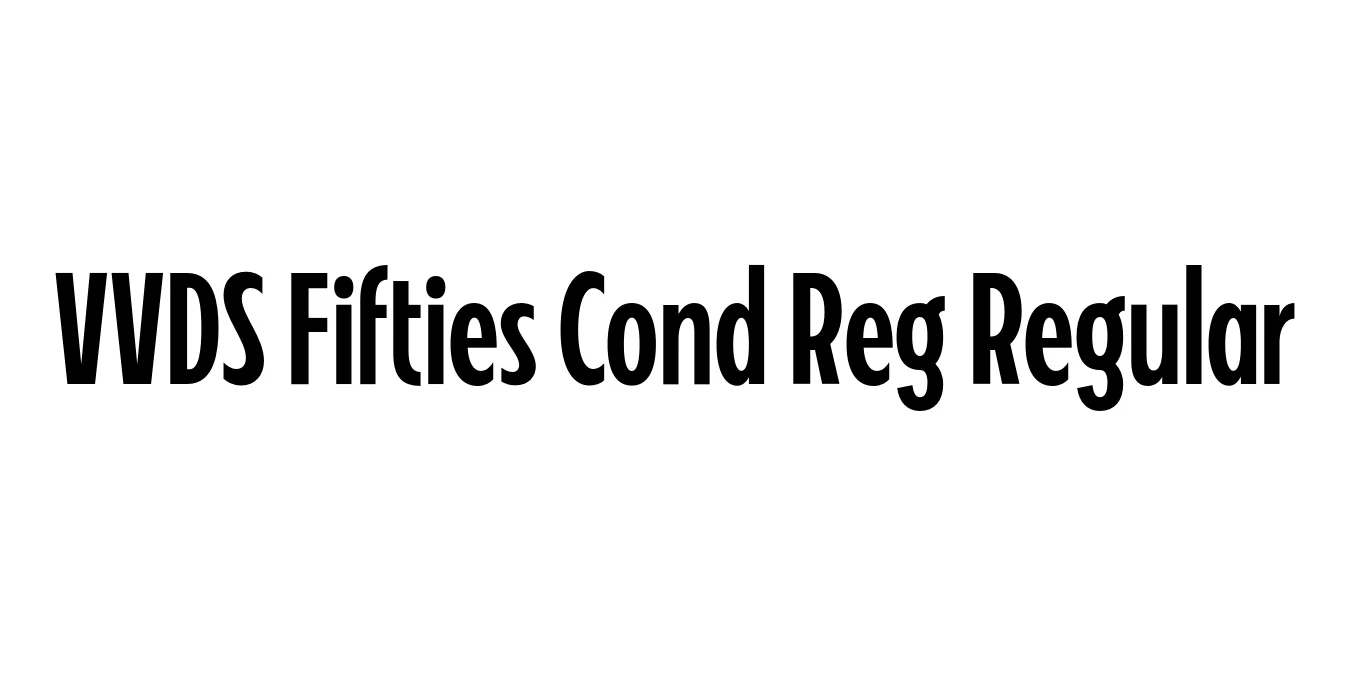
VVDS Fifties Cond Reg Regular
Designed by Pavel Kulinsky (Vintage Voyage Design Supply)
VVDS Fifties Cond Reg Regular is a sophisticated sans-serif typeface that draws inspiration from the vibrant advertising and signage of the mid-20th century. This condensed variant is meticulously crafted to offer a clean, high-impact aesthetic that maximizes vertical space without sacrificing legibility. Its geometric roots are softened by subtle humanist characteristics, making it a perfect choice for designers looking to evoke a nostalgic yet professional 1950s atmosphere.
Developed by the renowned Pavel Kulinsky, this font serves as a versatile tool for modern branding, editorial design, and digital media. The balanced proportions and crisp lines of the Regular weight ensure that it performs exceptionally well in both print and digital environments. Whether used for bold headlines or intricate logo marks, VVDS Fifties Condensed provides a timeless quality that bridges the gap between mid-century modernism and contemporary design standards.
VVDS Fifties Cond Reg Regular Best Uses
Excellent for creating authentic vintage brand identities and logos.
Perfect for magazine headlines and vertical layout typography.
Highly effective for bold, space-saving titles on event posters.
Adds a classic touch to product labels and retro-themed packaging.